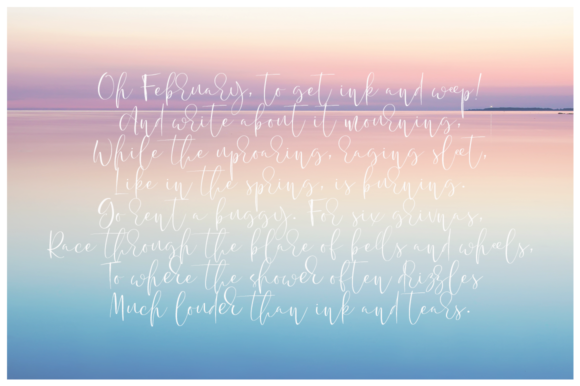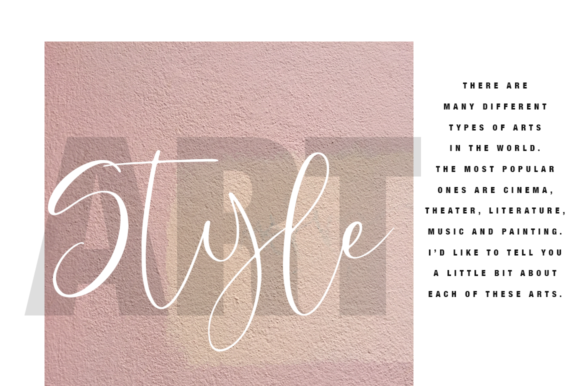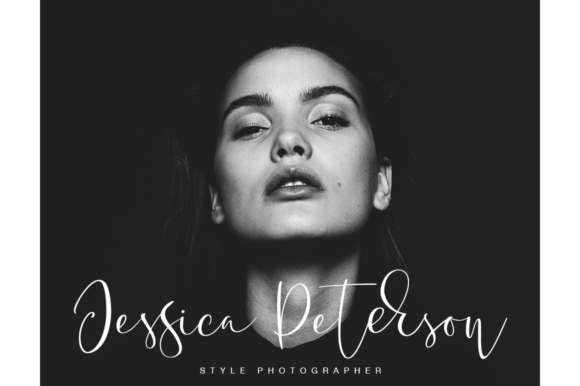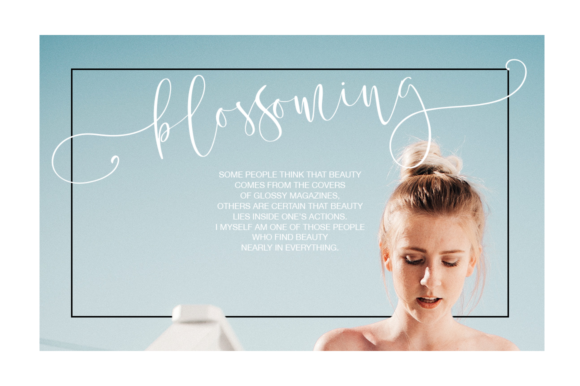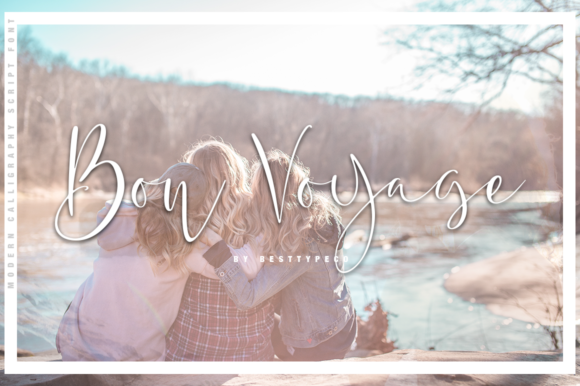
Bon Voyage Font
About Bon Voyage Font
The Bon Voyage is a fresh handmade calligraphy font.
Very suitable for greeting cards, branding materials, business cards, quotes, posters, and more!